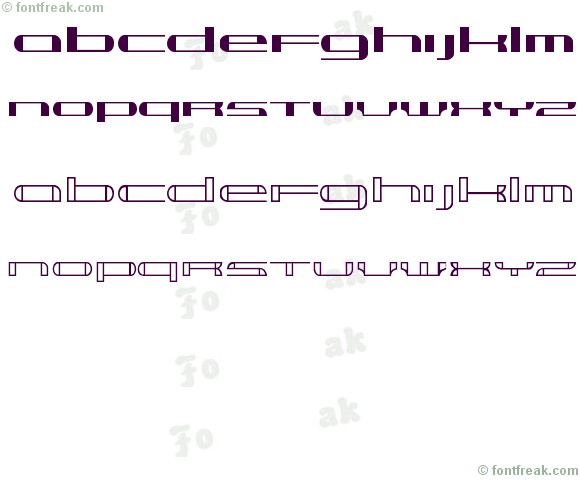
risk
The Risk font, designed by Niels Bonnevie and released in 2001, is a striking display typeface that embodies a unique blend of modernity and creativity. As a freeware font, it offers an excellent opportunity for designers to incorporate a distinctive typographic style into their projects without any cost. Risk is characterized by its bold, geometric forms and clean lines, which create a strong visual impact. The stroke weight is consistent, providing a sense of stability, while the slight contrast gives it a contemporary edge. The spacing between letters is ample, ensuring legibility and allowing the font to breathe in various design contexts.
This versatile font is particularly well-suited for a range of applications, including eye-catching movie posters, dynamic branding for tech startups, and attention-grabbing event flyers. Its modern aesthetic also makes it an excellent choice for website headers and promotional materials, where clarity and style are paramount. Graphic designers will appreciate its bold presence, while small business owners can use it to create memorable visual identities. Content creators looking to add flair to their digital projects will find the Risk font free download an invaluable resource.
What sets the Risk font apart is its striking ability to convey both strength and sophistication. It captures attention without overwhelming the viewer, making it an ideal choice for any project that seeks to make a memorable impression. Its unique design allows it to stand out in a saturated market, ensuring that your message remains clear and impactful. Whether you are designing for print or digital media, the Risk font offers a refreshing option that elevates your work and engages your audience.